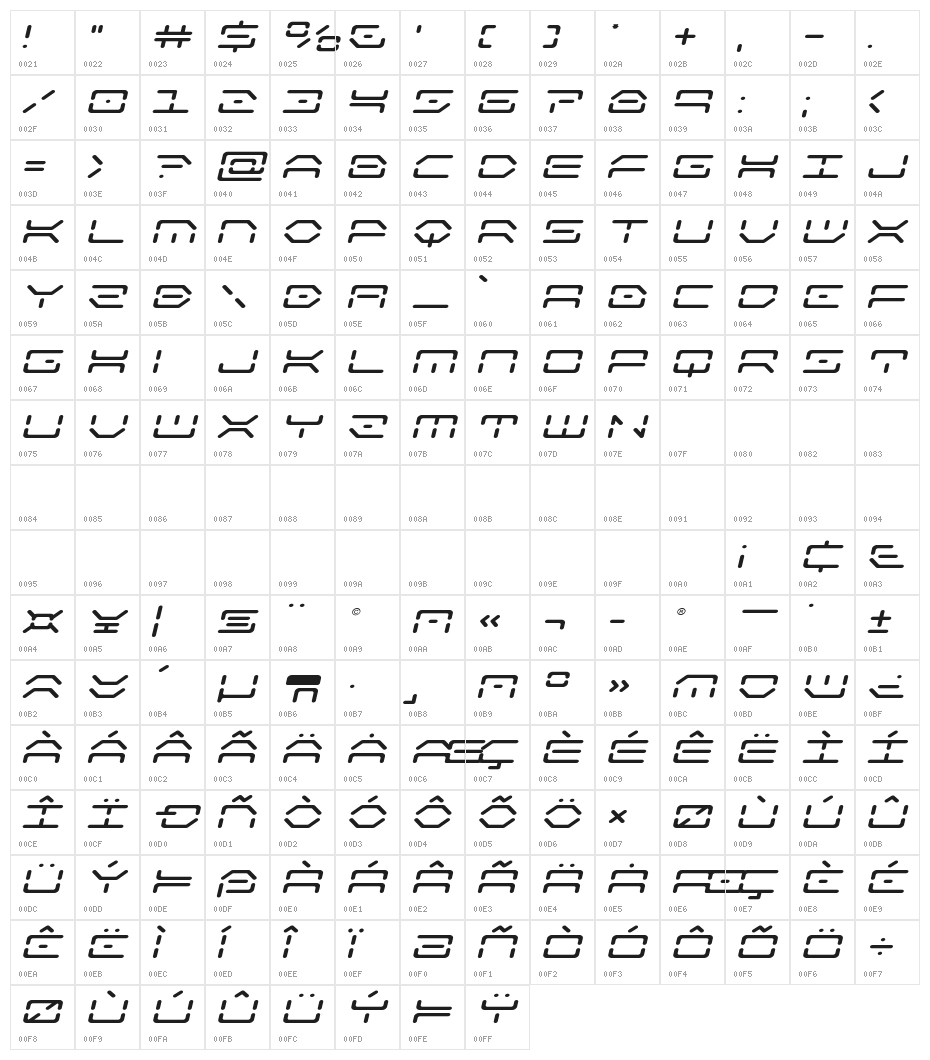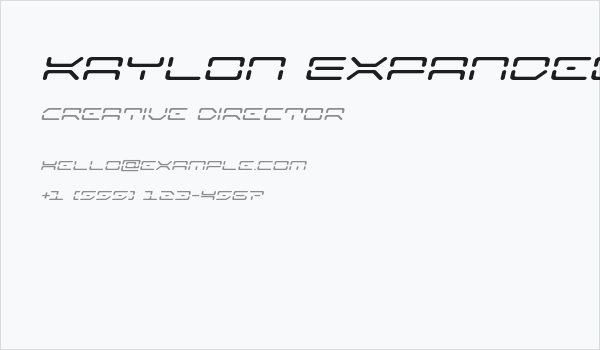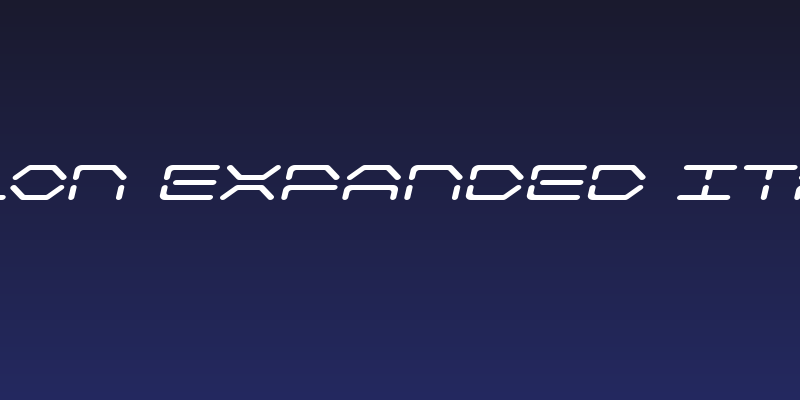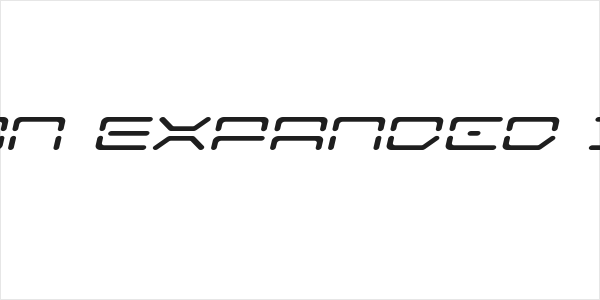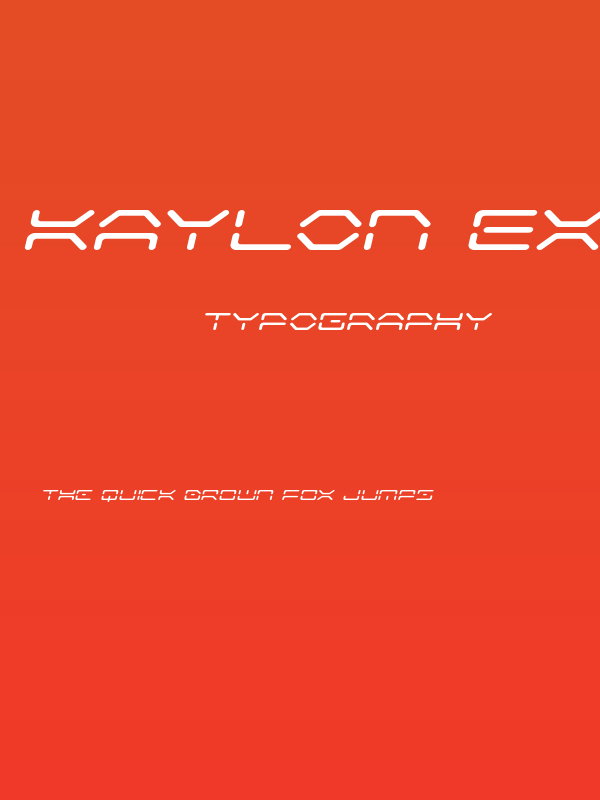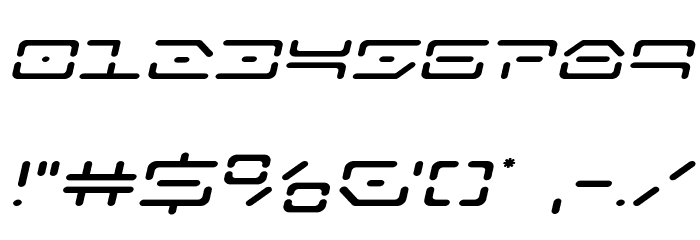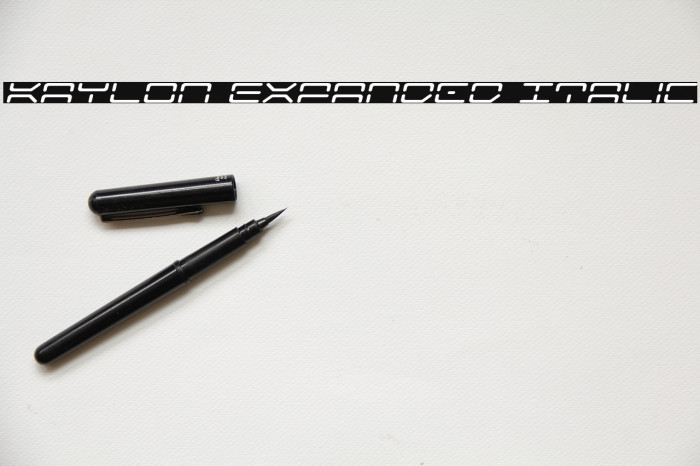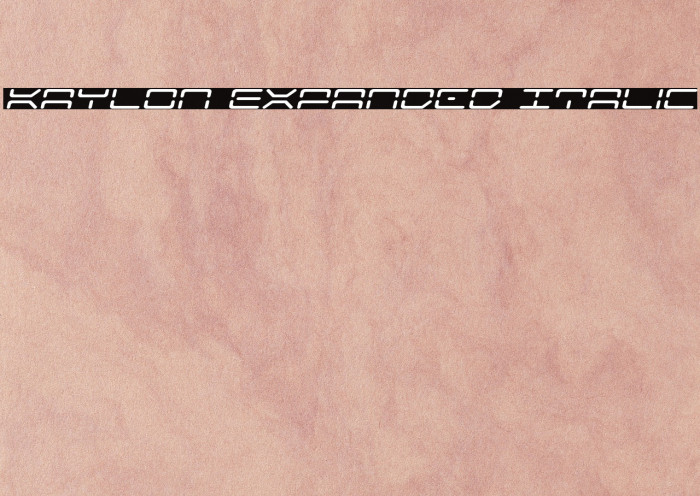
Kaylon Expanded Italic Font
Kaylon Expanded Italic Description
This font features a futuristic and geometric design with an expanded and italicized style. The characters are composed of bold, angular lines with rounded corners, creating a sleek and modern appearance. The uppercase and lowercase letters maintain a consistent height, contributing to a uniform look. The numbers and special characters follow the same design principles, ensuring cohesion across all glyphs. The font's expanded width gives it a spacious feel, while the italic slant adds a dynamic touch. Its unique style makes it suitable for projects that require a contemporary and tech-inspired aesthetic.
| Use Case | Headlines, Logos, Display text |
| Proposed Projects | Ideal for sci-fi themed designs, tech branding, video game interfaces, and modern advertising. |